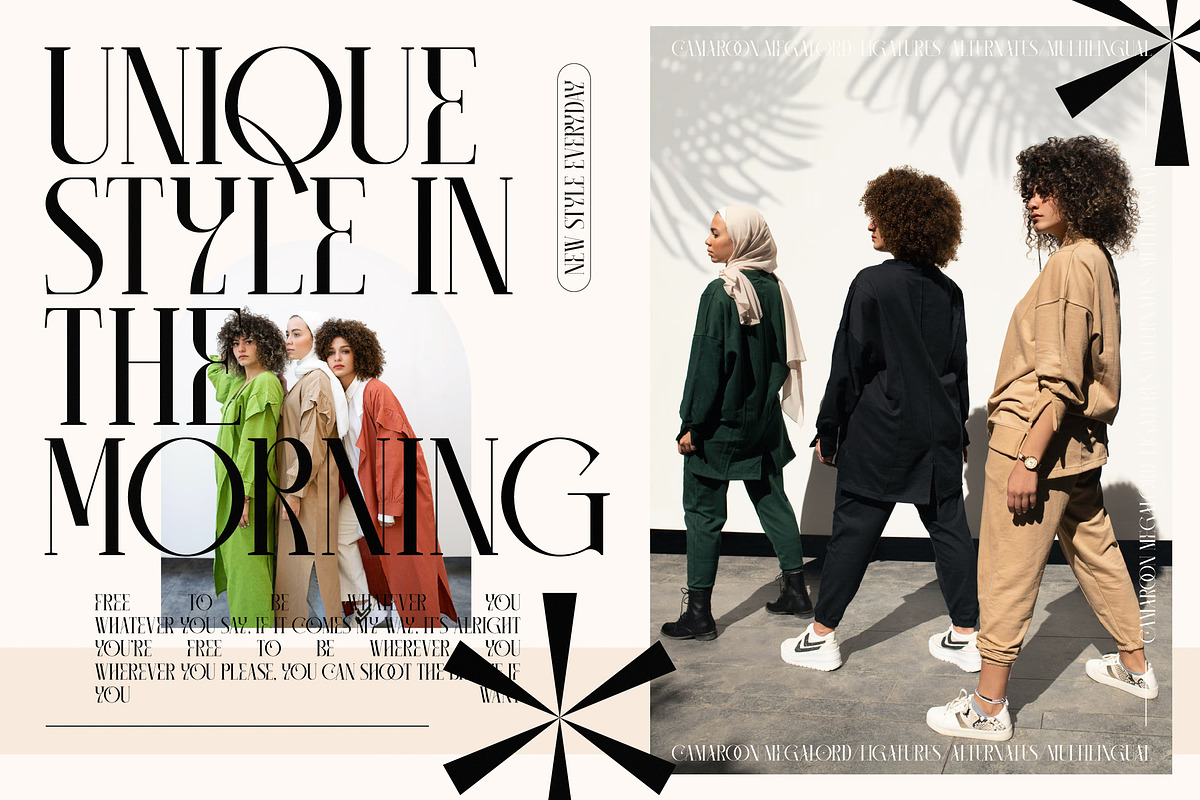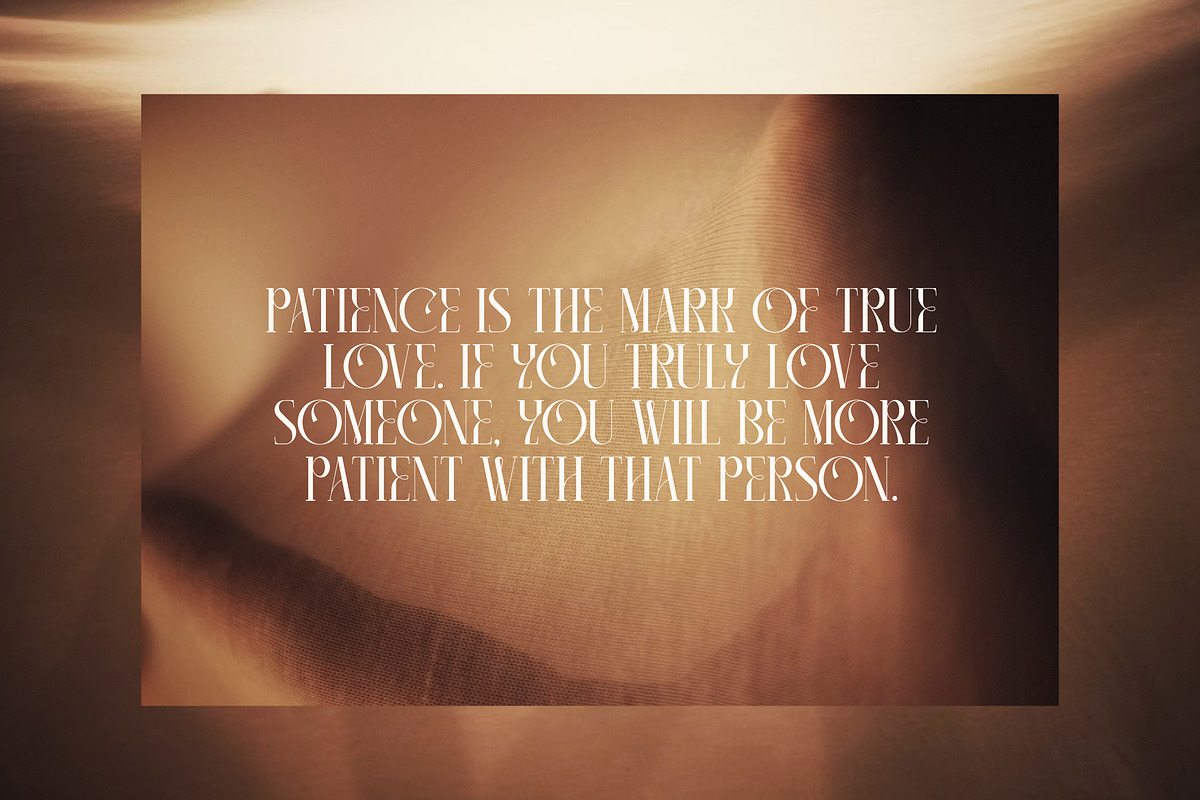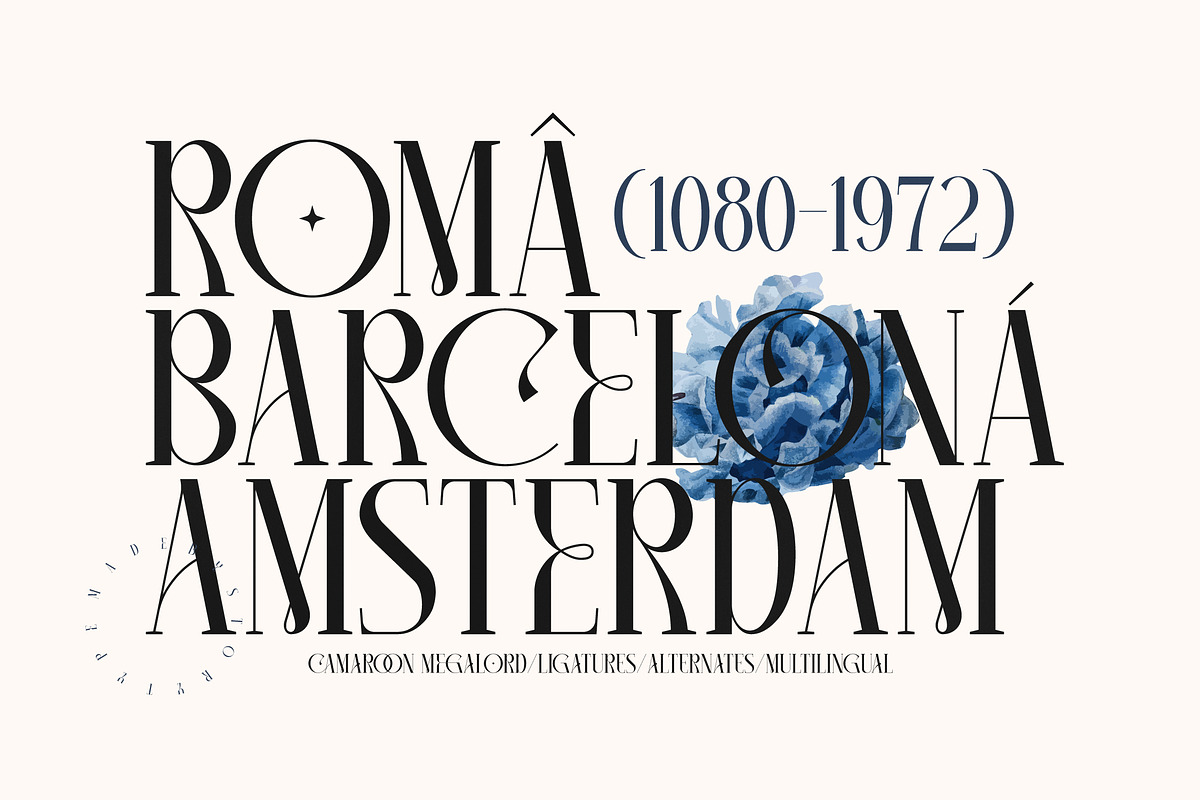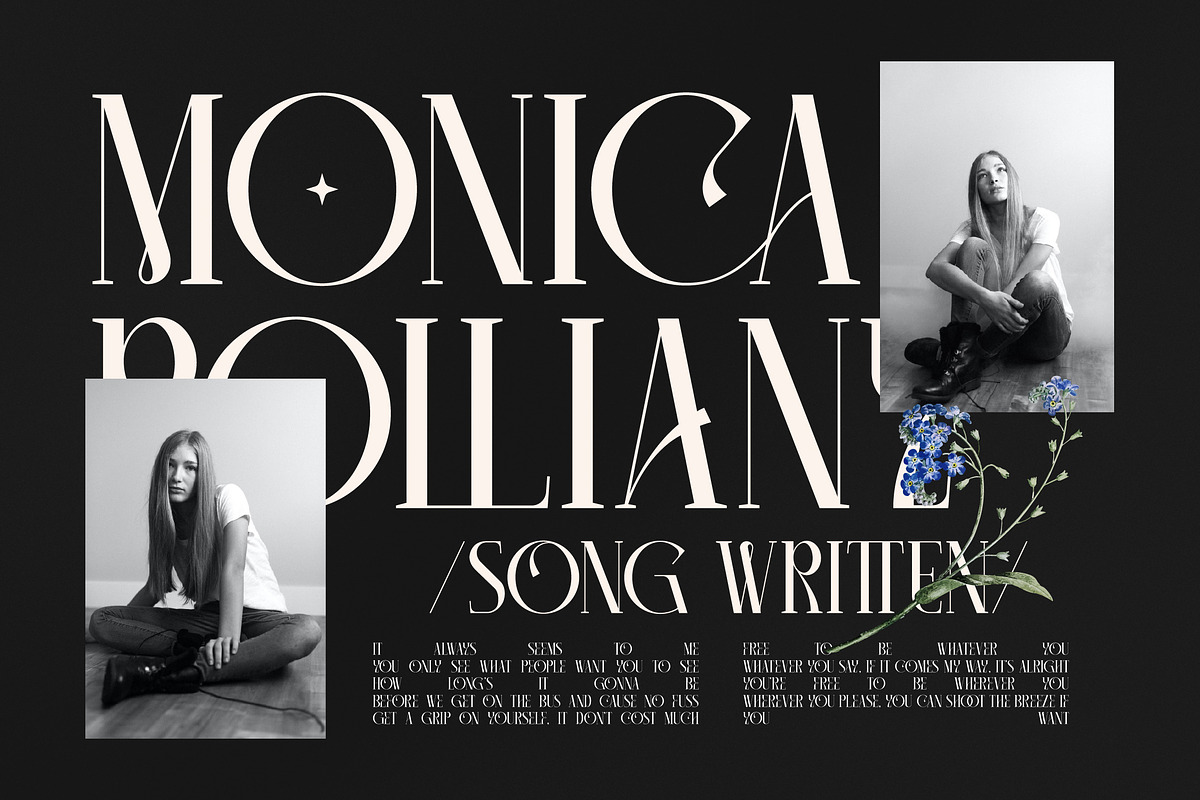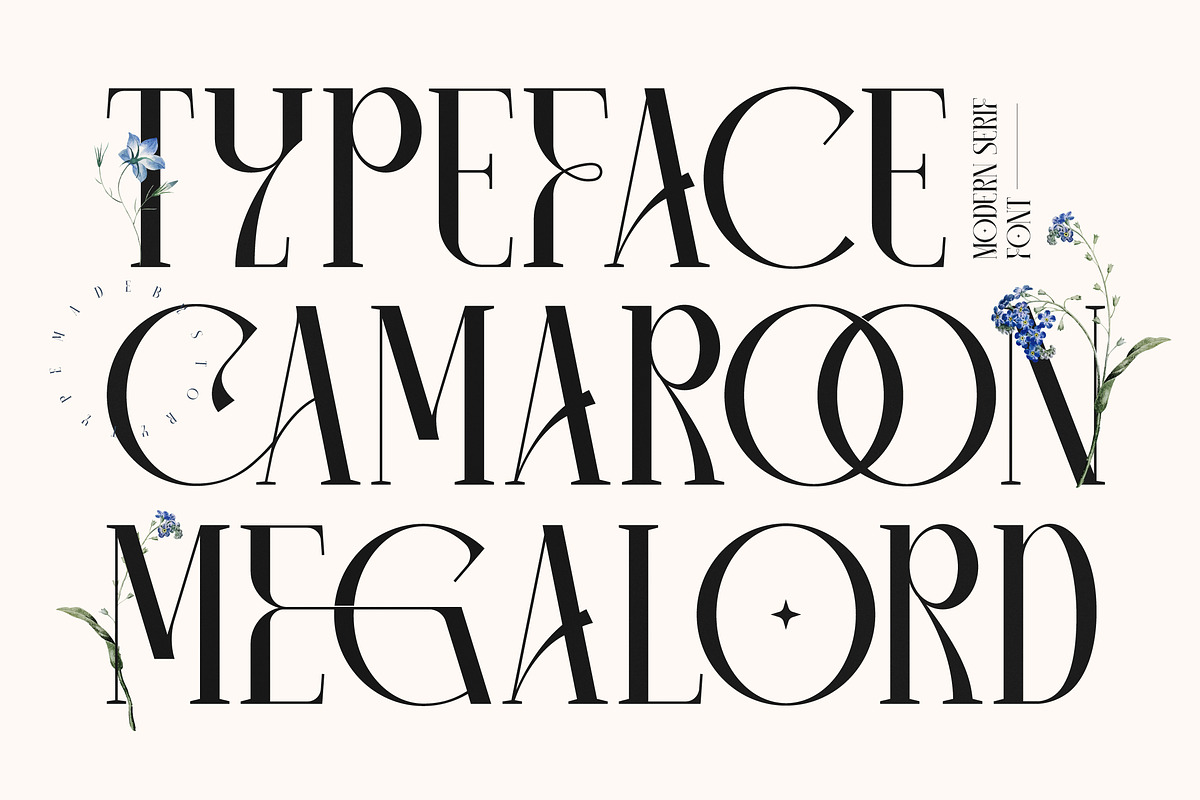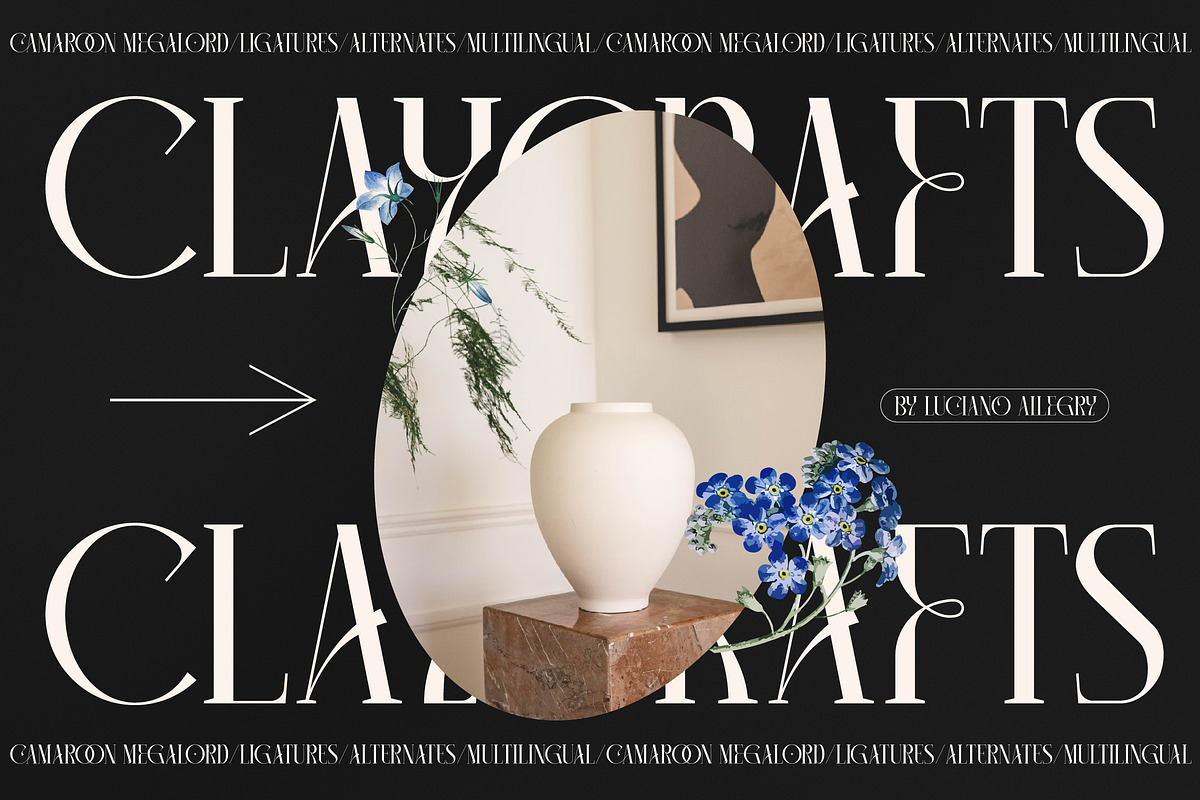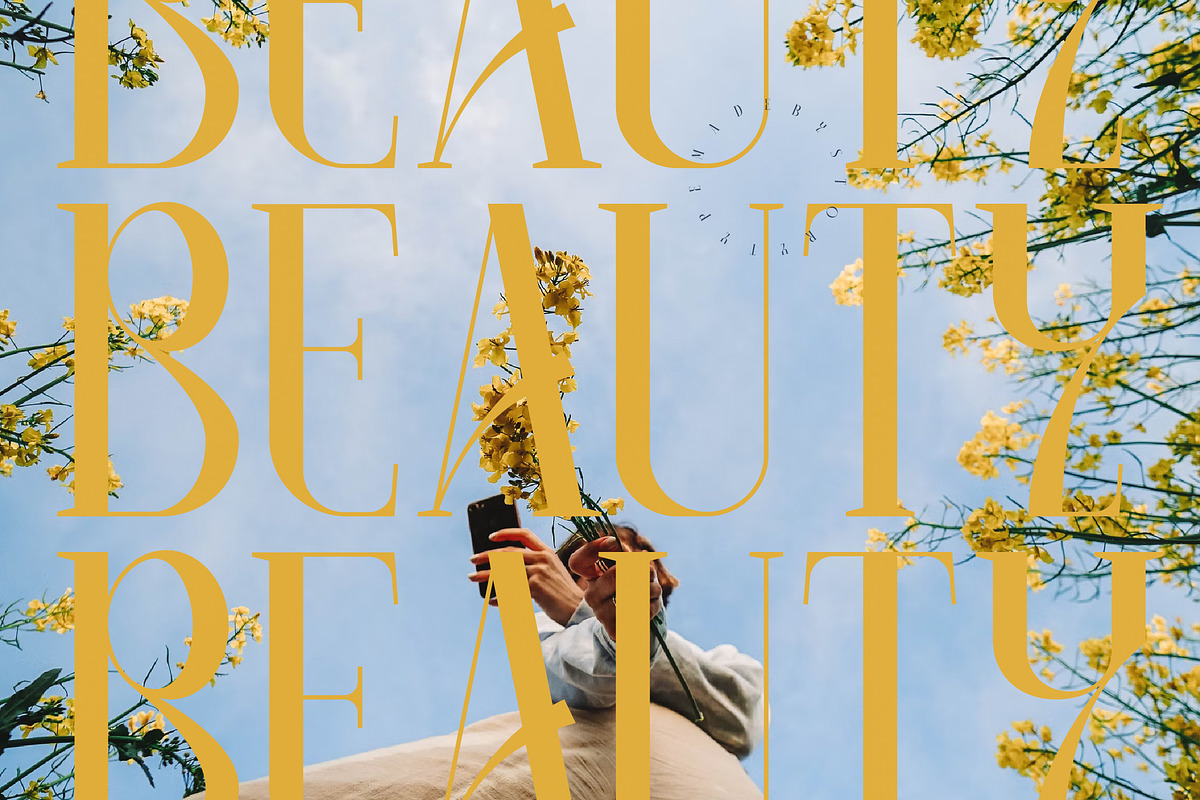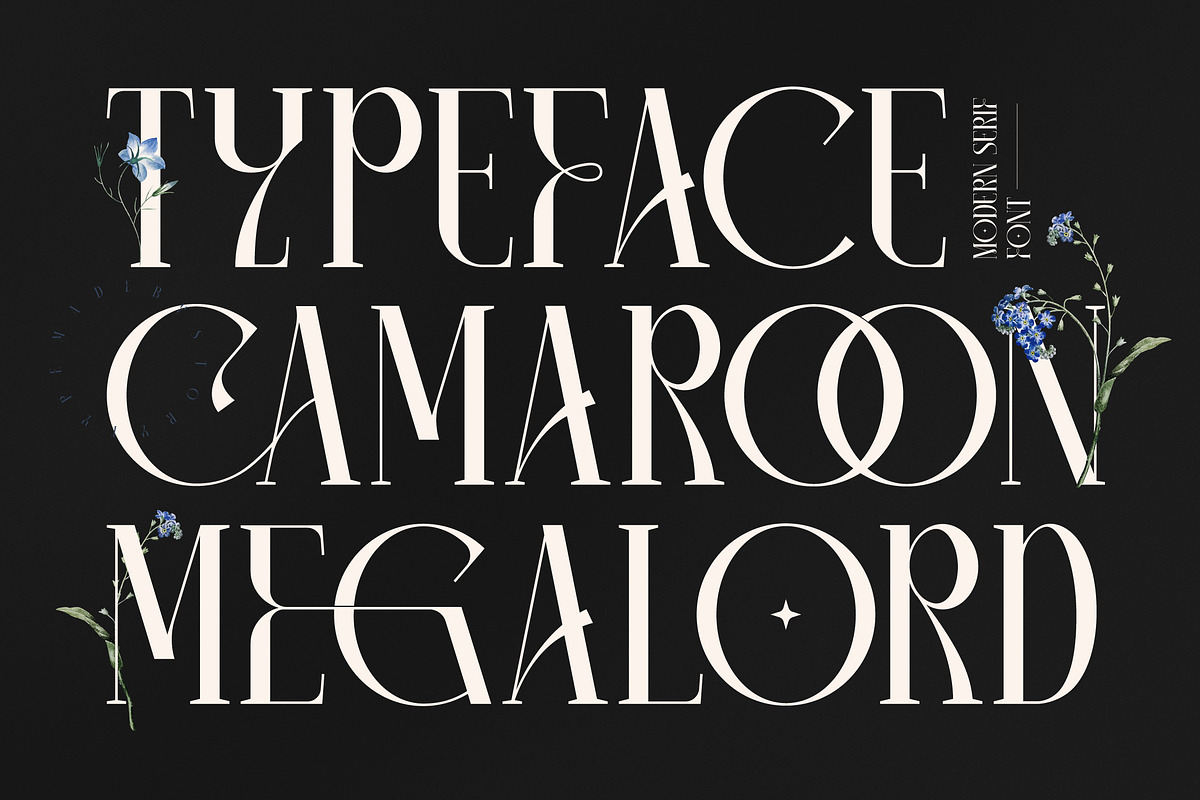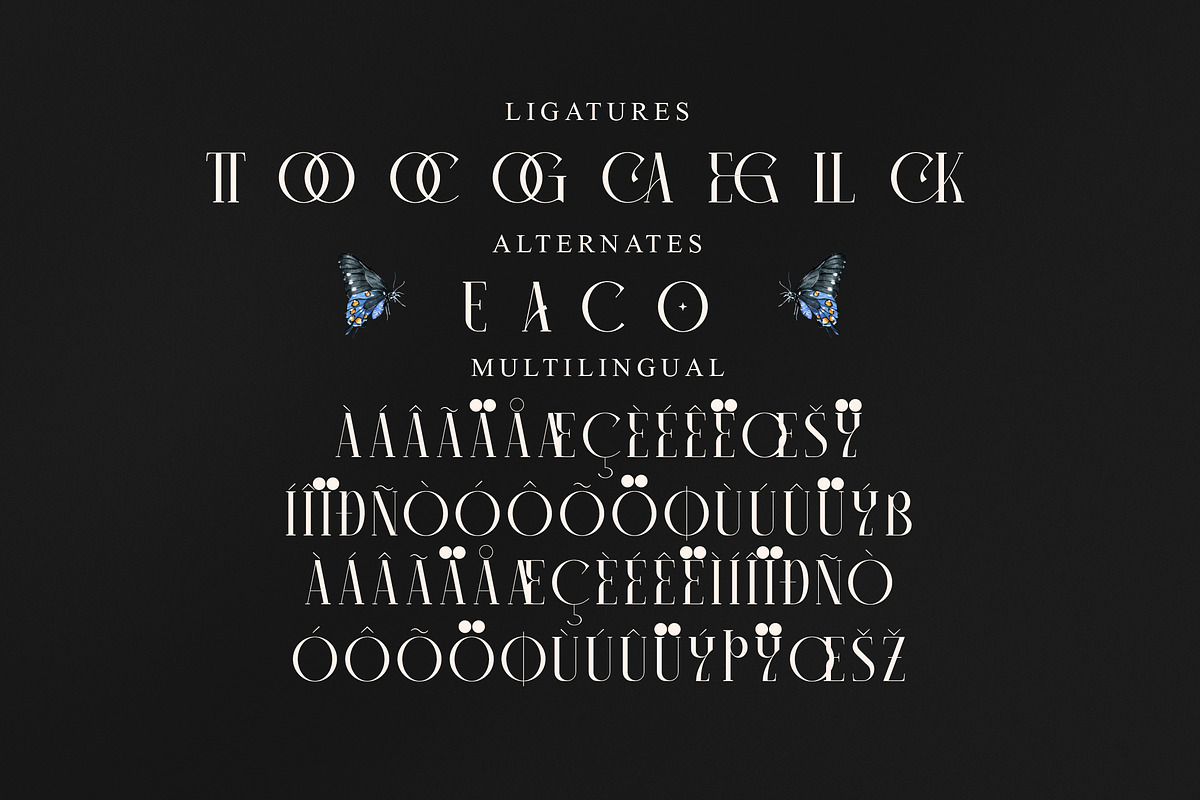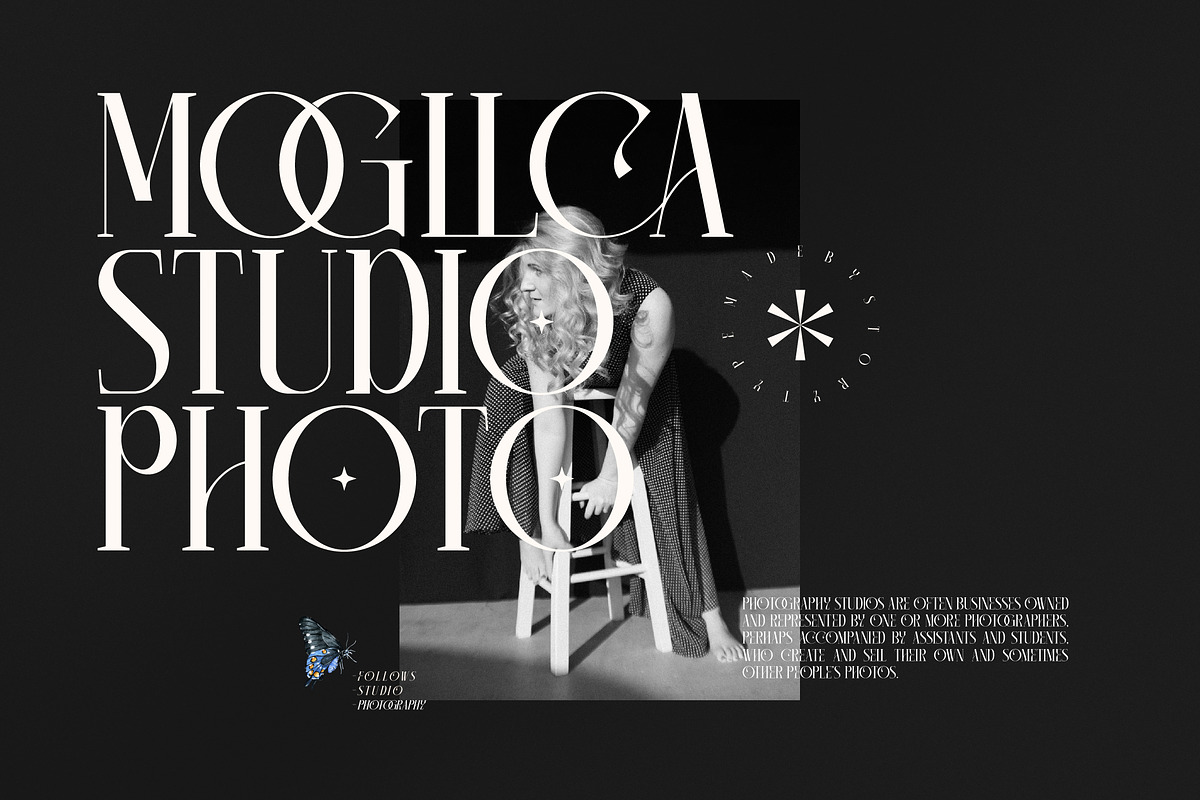
Camaroon Megalord Serif Display Font
Proudly present CAMAROON MEGALORD Typeface , created by Storytype, A serif modern and classic typeface that has own unique style & modern look. This typeface is perfect for an elegant & luxury logo, book or movie title design, fashion brand, magazine, clothes, lettering, quotes, and so much more.